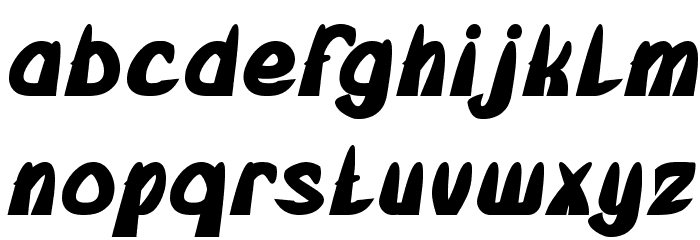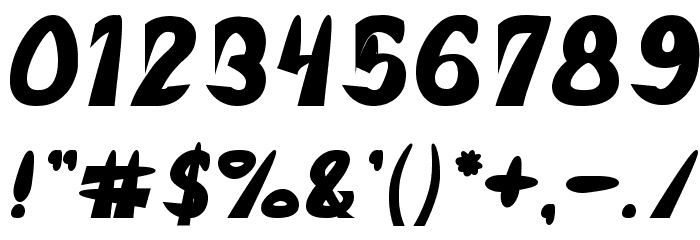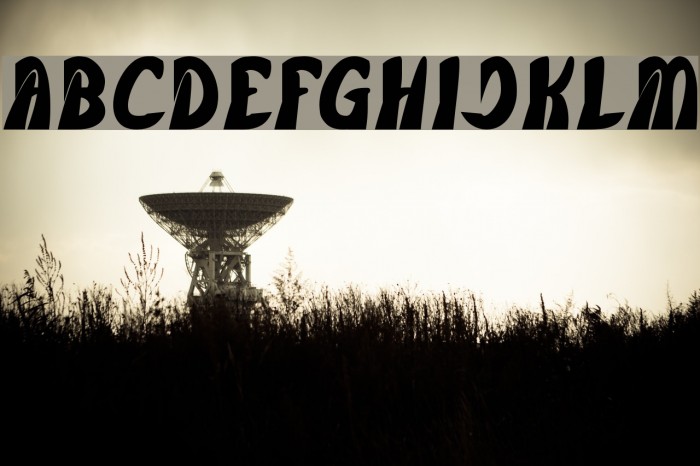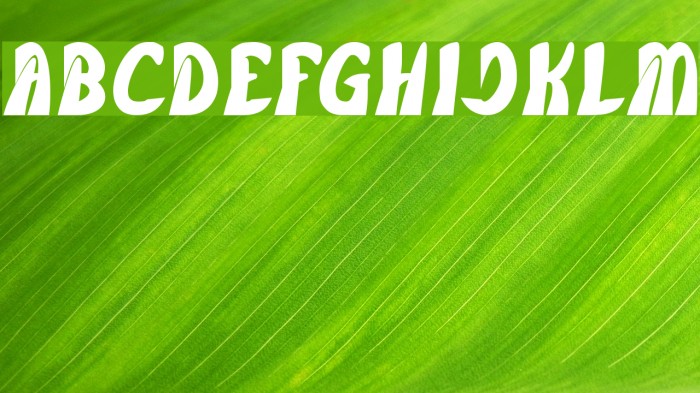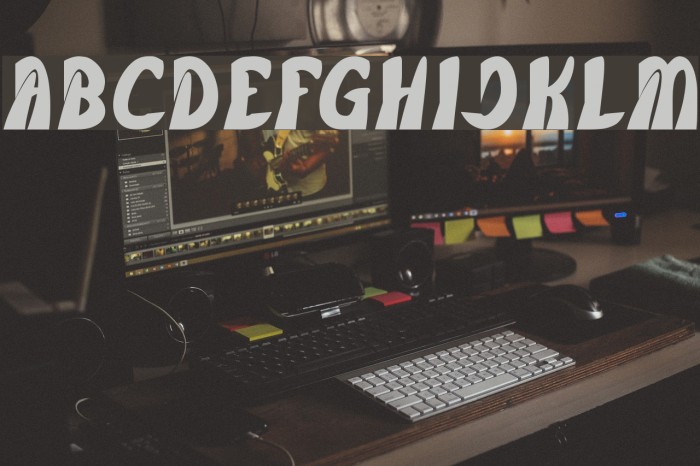
FROZEN ICE Bold Font
This font features a bold and dynamic style with a playful and slightly whimsical appearance. The characters are thick and have a strong presence, with a slight slant that adds a sense of movement and energy. The strokes are smooth and rounded, giving the font a friendly and approachable feel. The uppercase and lowercase letters maintain a consistent style, while the numerals and special characters complement the overall design. This font is ideal for projects that require a bold statement and a touch of fun.
A bold, dynamic font with a playful and whimsical style.
- Proposed Projects: Perfect for posters, children's books, playful branding, and eye-catching headlines.
- Overall Style: Playful, Whimsical